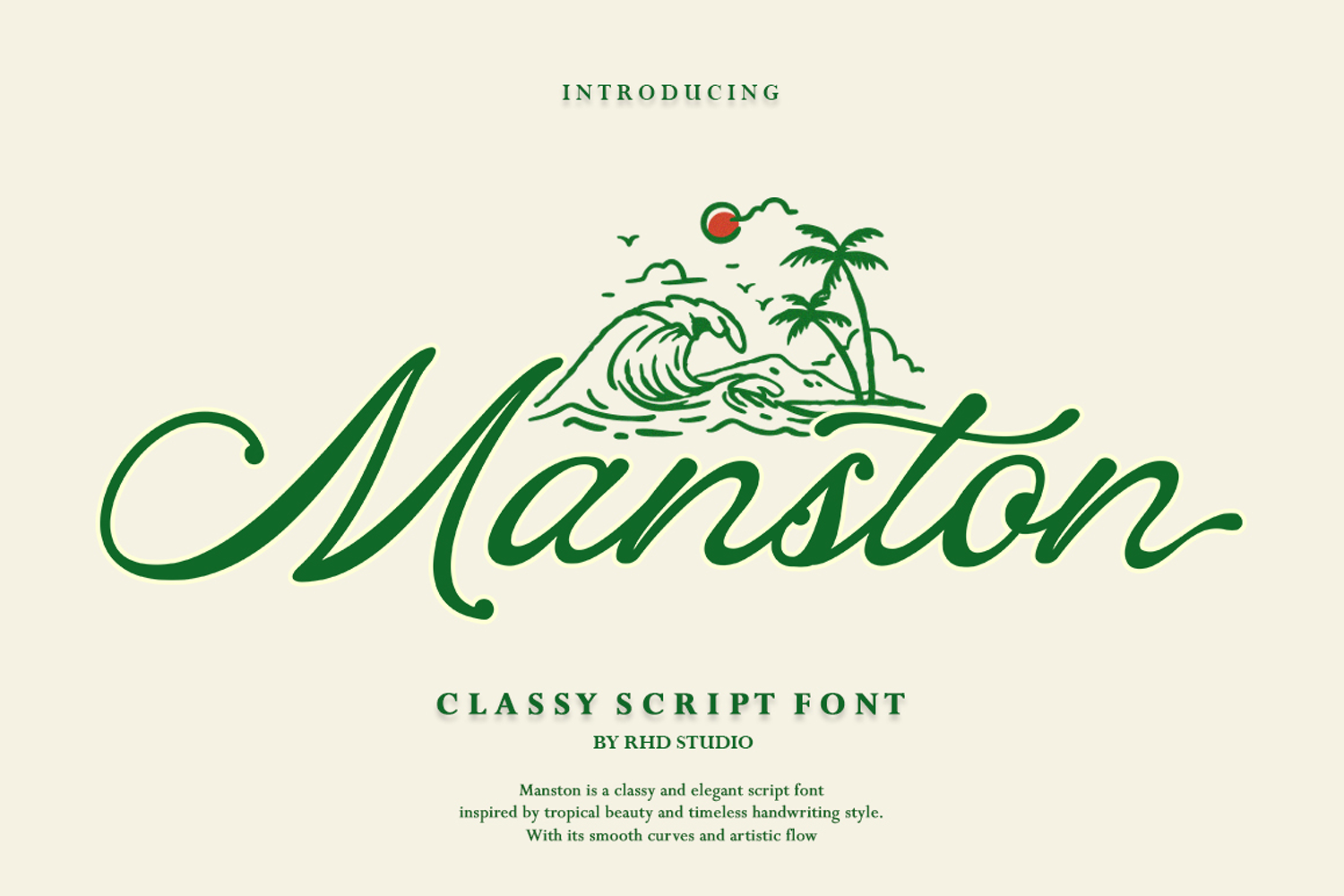
Manstone
Manston – Classy Script Font Manston is an elegant script font infused with a captivating tropical vibe. Inspired by the beauty of beaches, the rhythm of ocean waves, and the spirit of endless vacations, this font combines a luxurious feel with a relaxed charm. With its smooth curves and artistic flow, Manston is perfect for branding, logos, wedding invitations, product packaging, and other creative projects.
Let Manston bring a touch of natural elegance and tropical allure to every design you create. Features